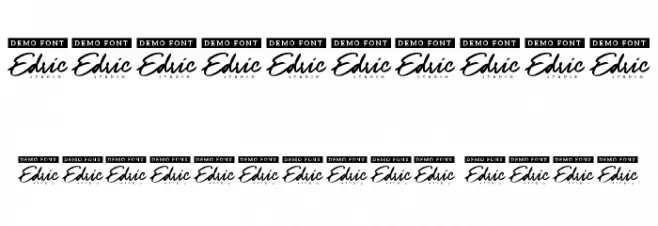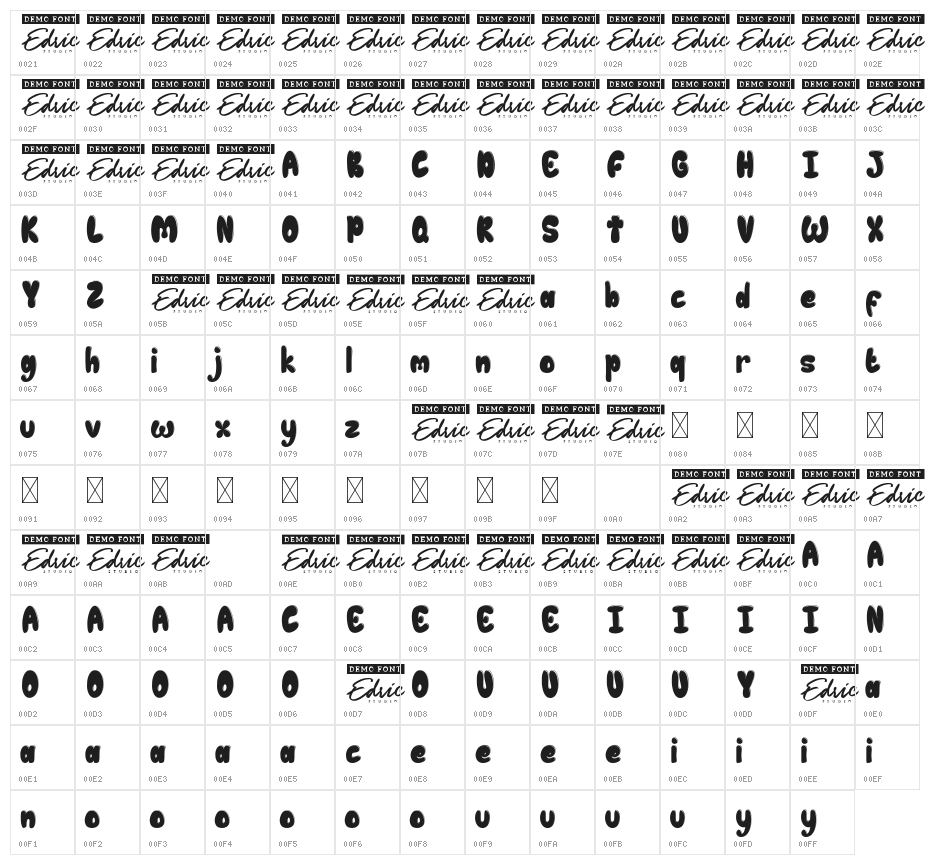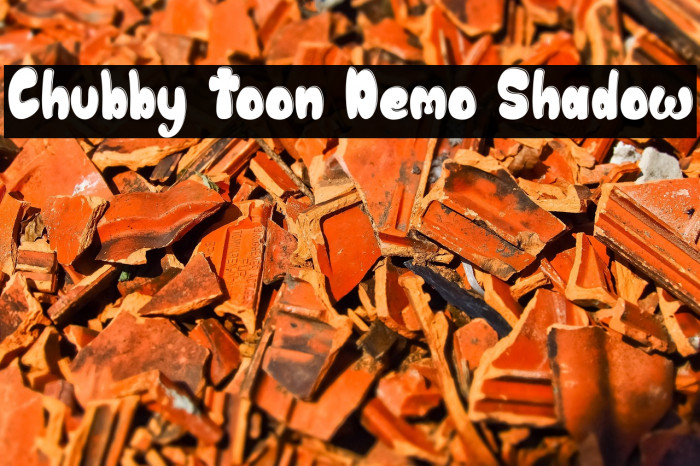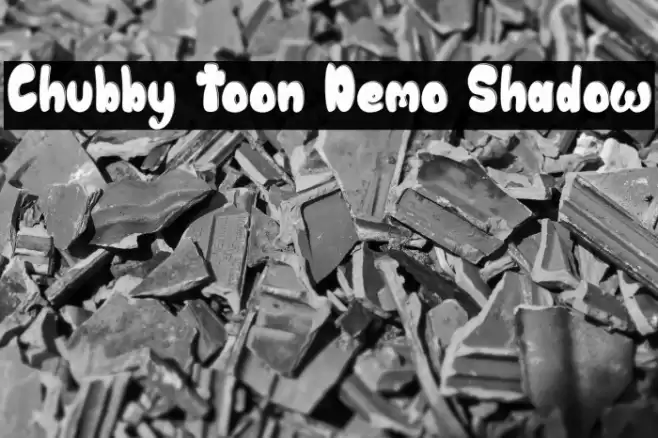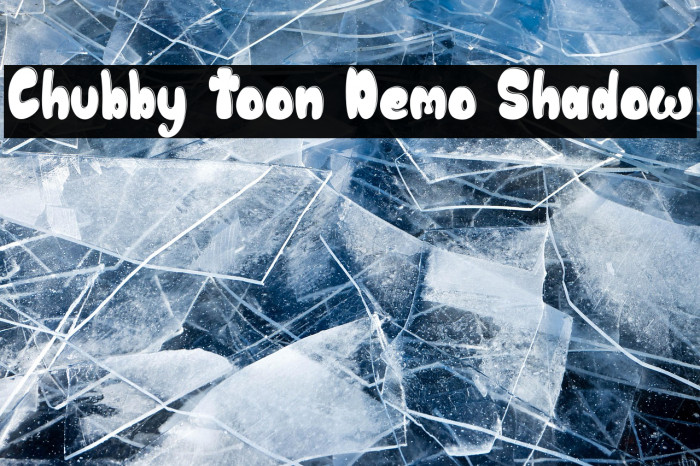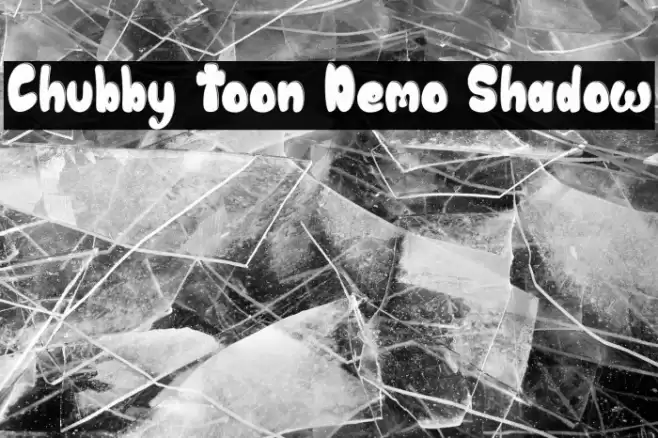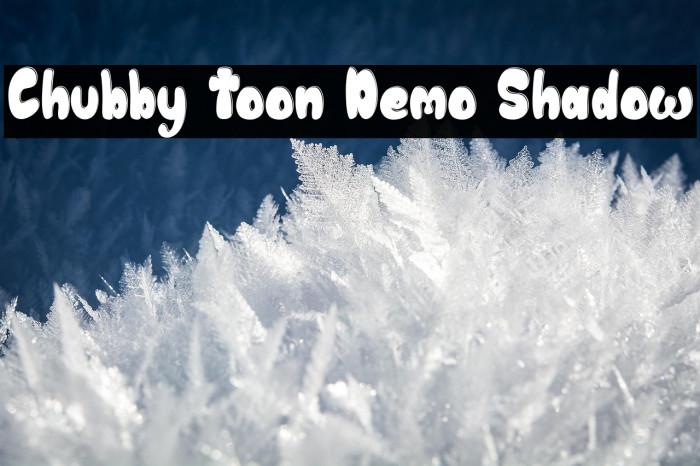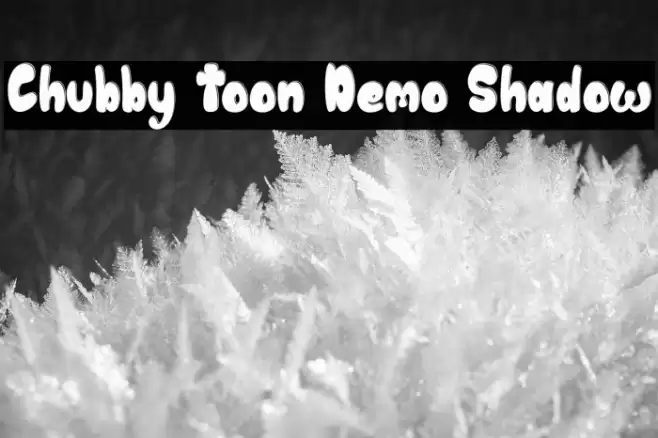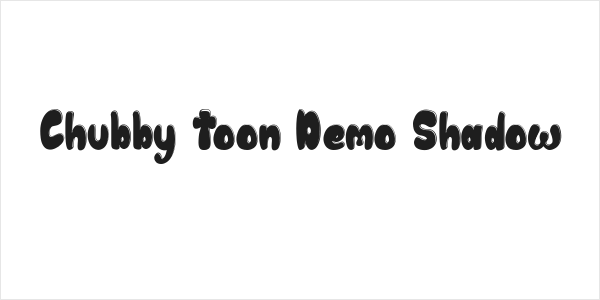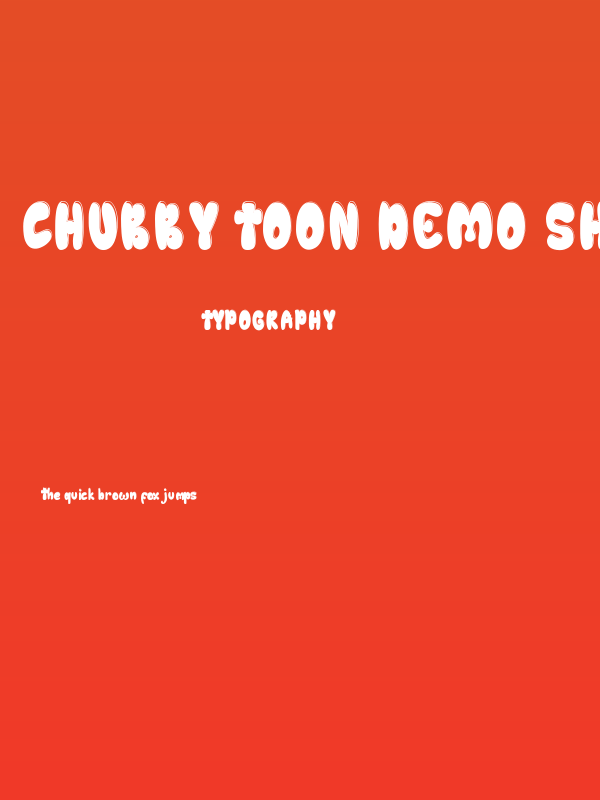
Chubby Toon Demo Shadow Font
Chubby Toon Demo Shadow Description
This playful and bold font features thick, rounded characters with a shadow effect that adds depth and dimension. The letters are evenly spaced, creating a cohesive and visually appealing look. The uppercase and lowercase letters maintain a consistent style, with rounded edges and a slightly inflated appearance, reminiscent of cartoon lettering. The numbers and special characters follow the same design principles, ensuring uniformity across all elements. This font's whimsical and fun style makes it ideal for projects that require a lighthearted and engaging aesthetic.
| Overall Style | Playful, Cartoonish |
| Proposed Projects | Ideal for children's books, comic strips, playful branding, and party invitations. |